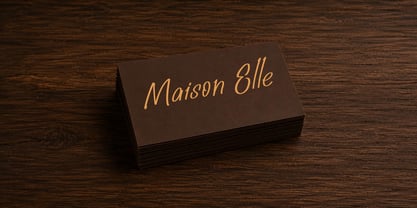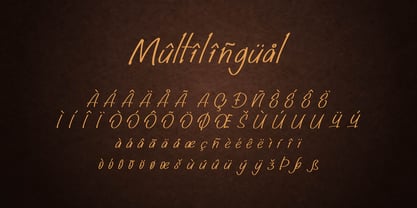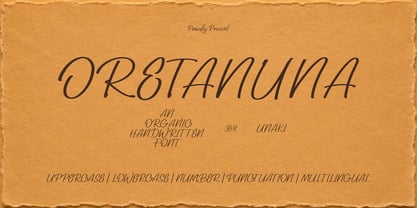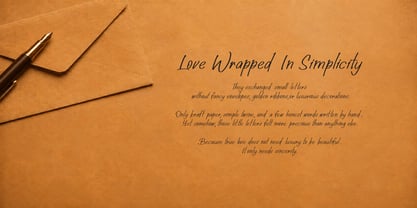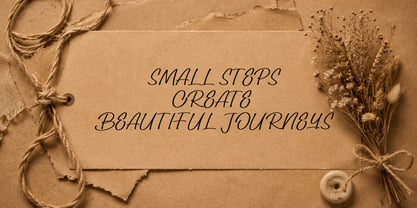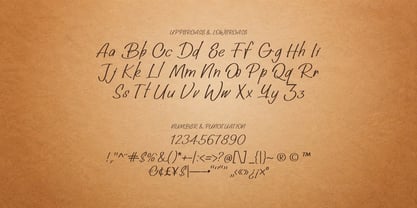
Oretanuna
La familia tipográfica Oretanuna fue diseñada por Tri Wahyu y publicada por Unaki. Oretanuna contiene 1 estilos. Más información sobre esta familia
Oretanuna is an elegant handwritten script font inspired by expressive ink lettering, intimate notes, and timeless stationery. Its slender strokes, graceful movement, slightly irregular letterforms, and natural handwritten rhythm create a warm, personal, and sophisticated impression.
The font combines a refined romantic character with a subtle rustic and vintage atmosphere. Its tall ascenders, flowing descenders, and organic baseline make every word feel spontaneous while remaining clear and visually balanced. Oretanuna works beautifully for both short headlines and expressive sentences.
Perfect for wedding invitations, love letters, boutique branding, business cards, product packaging, editorial titles, greeting cards, social media quotes, and other designs that require an authentic human touch. Its multilingual characters, uppercase and lowercase letters, numerals, and punctuation make Oretanuna a versatile choice for international creative projects.